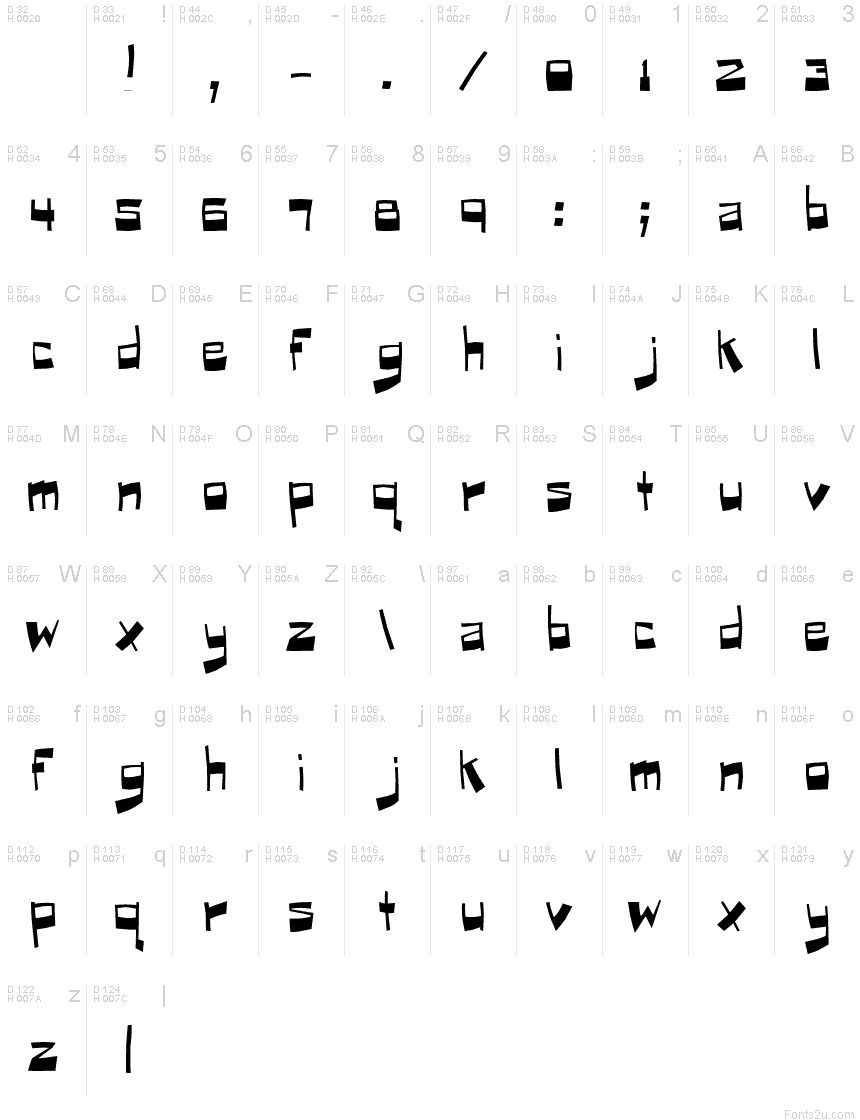
Puckfont
Puckfont, by Chank Diesel with illustration and design by Khai/Tokgun love, is a free cut-paper comic display font with a scrappy zine feel. The letters lean and wobble like quick hand-cut shapes, with sharp angles, uneven tops, and a deliberately off-kilter rhythm that keeps the whole alphabet feeling playful rather than polished.
It fits posters, indie flyers, mixtape covers, skate graphics, and title cards where a raw handmade voice helps set the tone. As a free font, it also works for short headlines, logo sketches, or drop-in wordmarks, especially when you want lettering that feels pasted together from black paper instead of drawn with a steady hand.